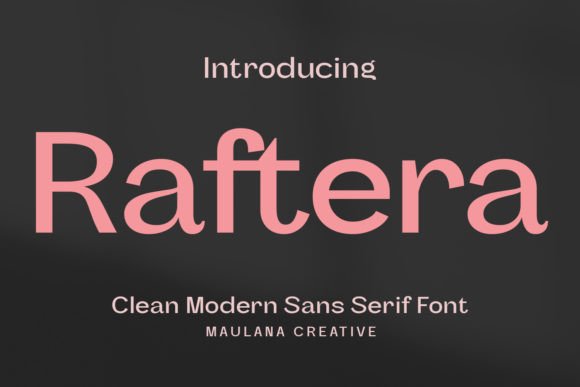
Introducing Raftera, the Minimalist Neo-grotesque Sans Serif Font: A Design Revolution for Modern UI Projects, Book Covers, Magazines, Social Media, and Beyond!
In the realm of digital creativity, fonts hold the power to shape visual narratives and evoke emotions. Meet Raftera, the minimalist sans serif font that embodies the fluidity and finesse of modern design. Crafted with precision by the visionary minds at Maulana Creative, Raftera brings a breath of fresh air to your creative arsenal.
With its clean lines, subtle curves, and a touch of understated elegance, Raftera is the perfect choice for tech-savvy designers, UI enthusiasts, and creative storytellers seeking a font that seamlessly blends form and functionality. Its sleek geometric structure dances across the screen, captivating audiences with its sharp angles and graceful intersections.
Raftera's versatility knows no bounds. It can effortlessly elevate book covers, transforming them into literary masterpieces. Its presence in magazines commands attention, imbuing each page with an air of sophistication. Unleash your creativity on social media posts, crafting visually stunning graphics that resonate with your audience. From invitations to branding, Raftera weaves its magic, leaving an unforgettable impression on all who encounter it.
Embrace Raftera and embark on a design journey unlike any other. Let its minimalist charm enhance your book covers, bringing depth and intrigue to your stories. In magazines, Raftera orchestrates a symphony of visual harmony, drawing readers into the heart of your narrative. Its digital prowess shines through in UI projects, where its clean lines and intuitive flow create seamless user experiences.
Raftera is more than just a font; it's a design companion, a trusted ally in your creative pursuits. With its versatility and timeless appeal, Raftera adapts effortlessly to a myriad of design landscapes, injecting a touch of modern finesse into every project it graces.